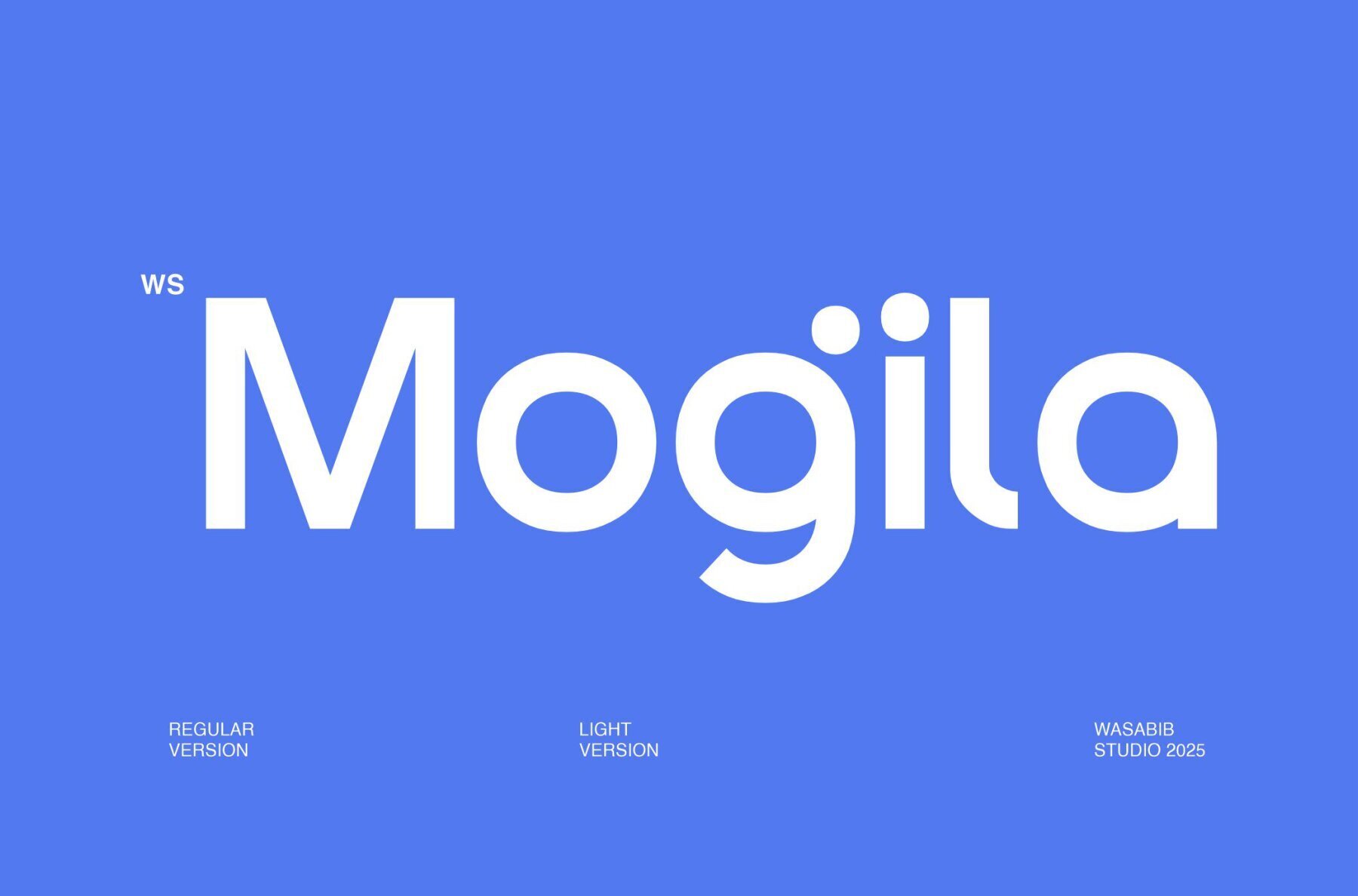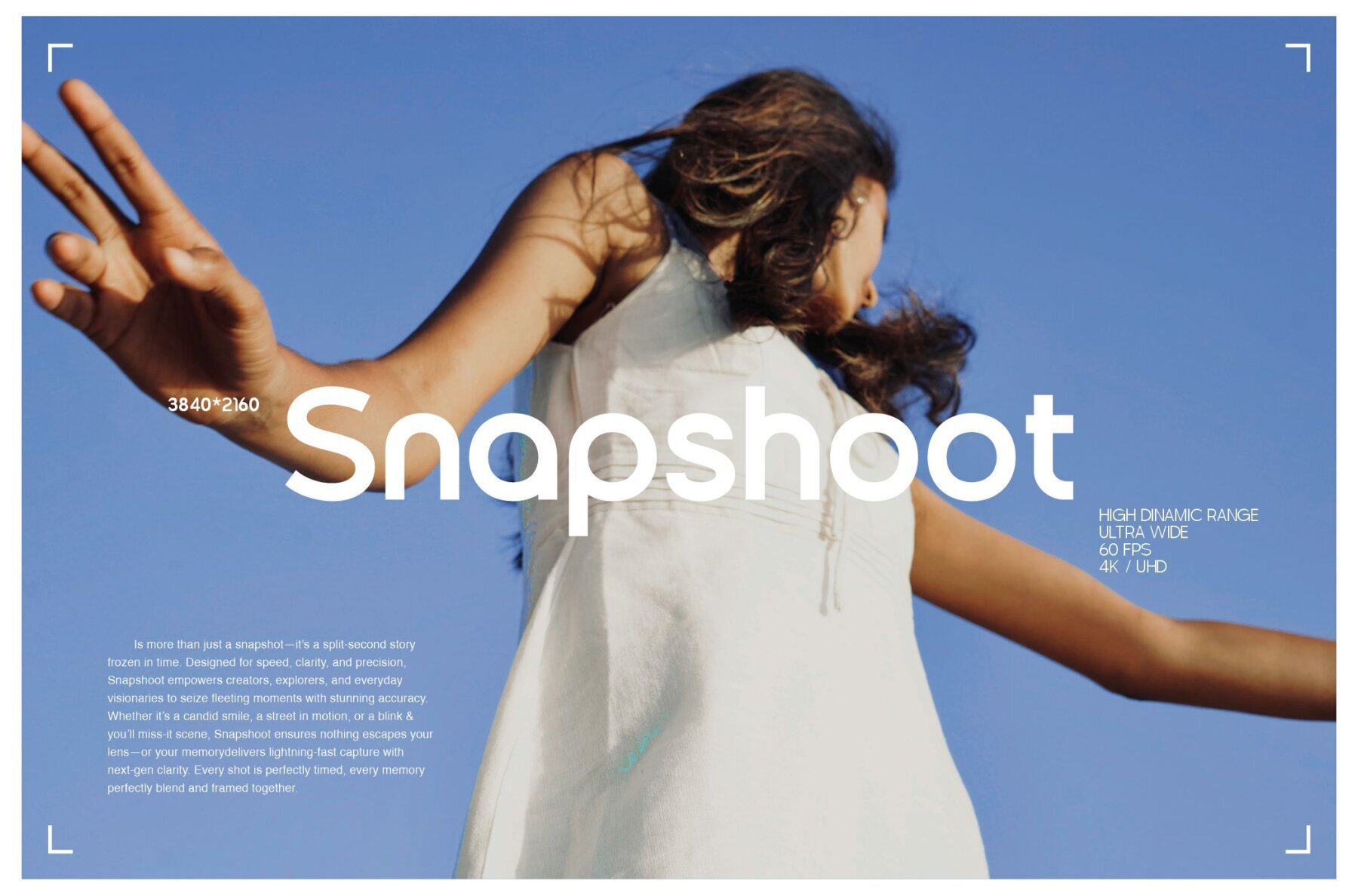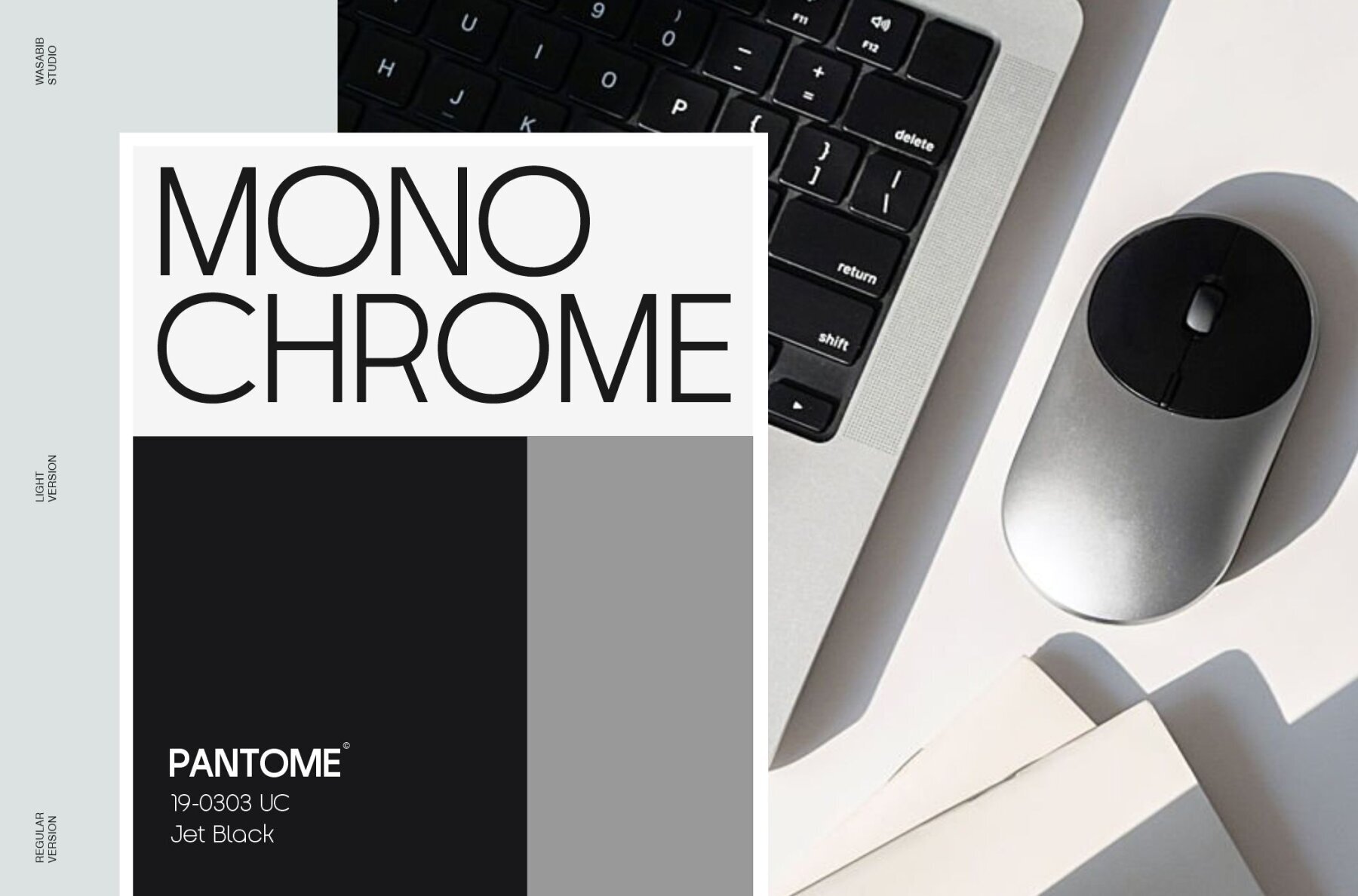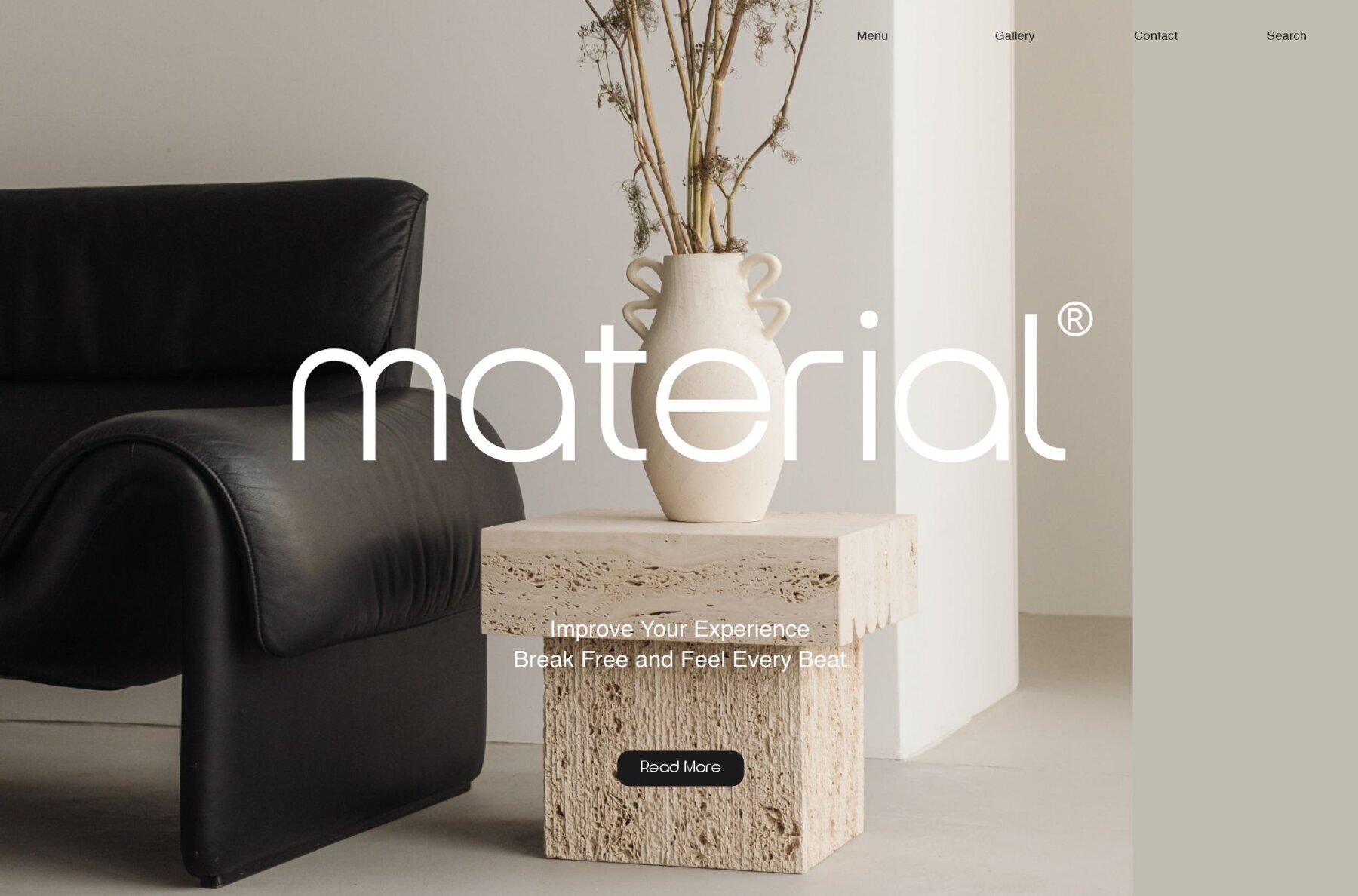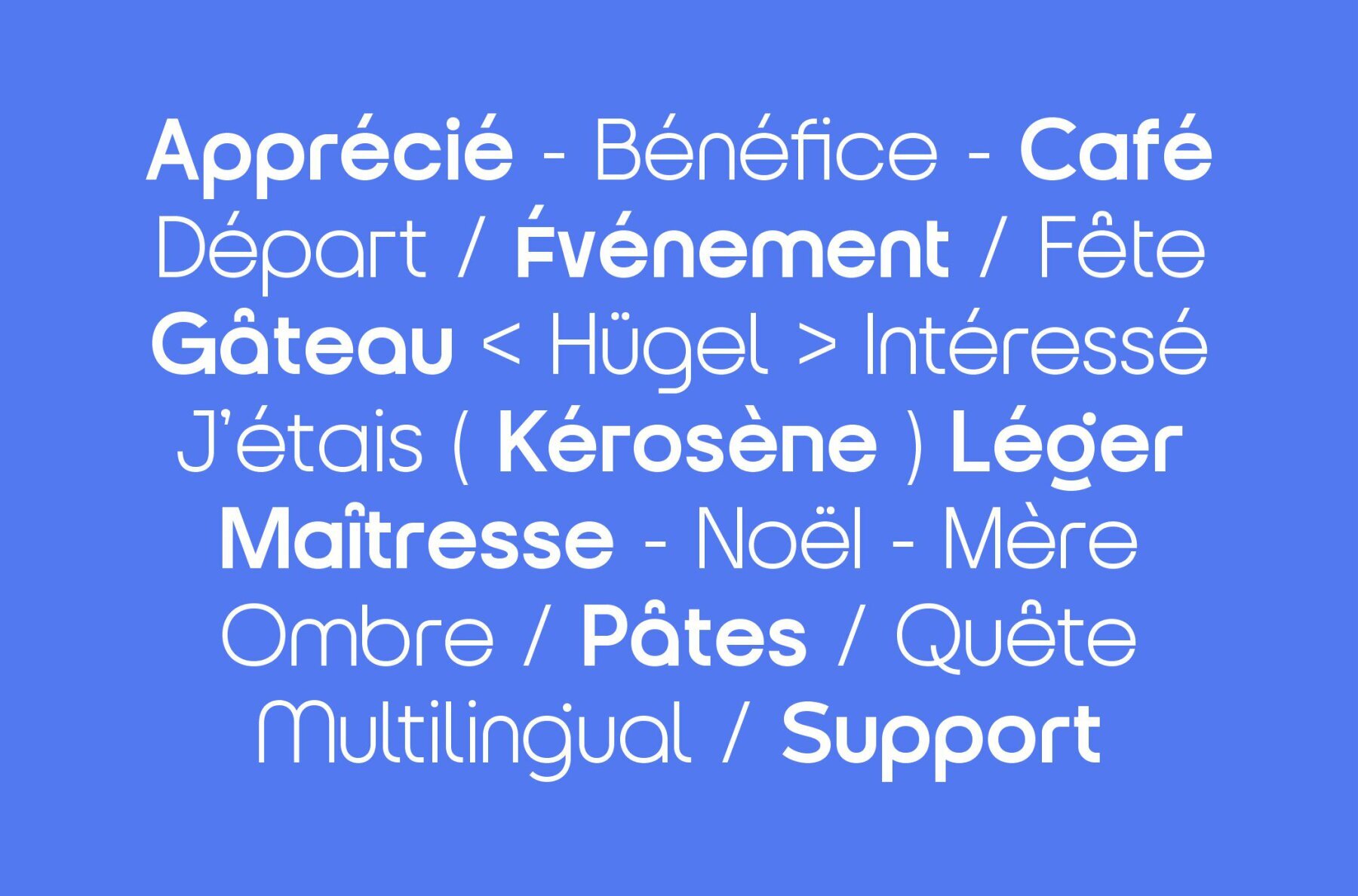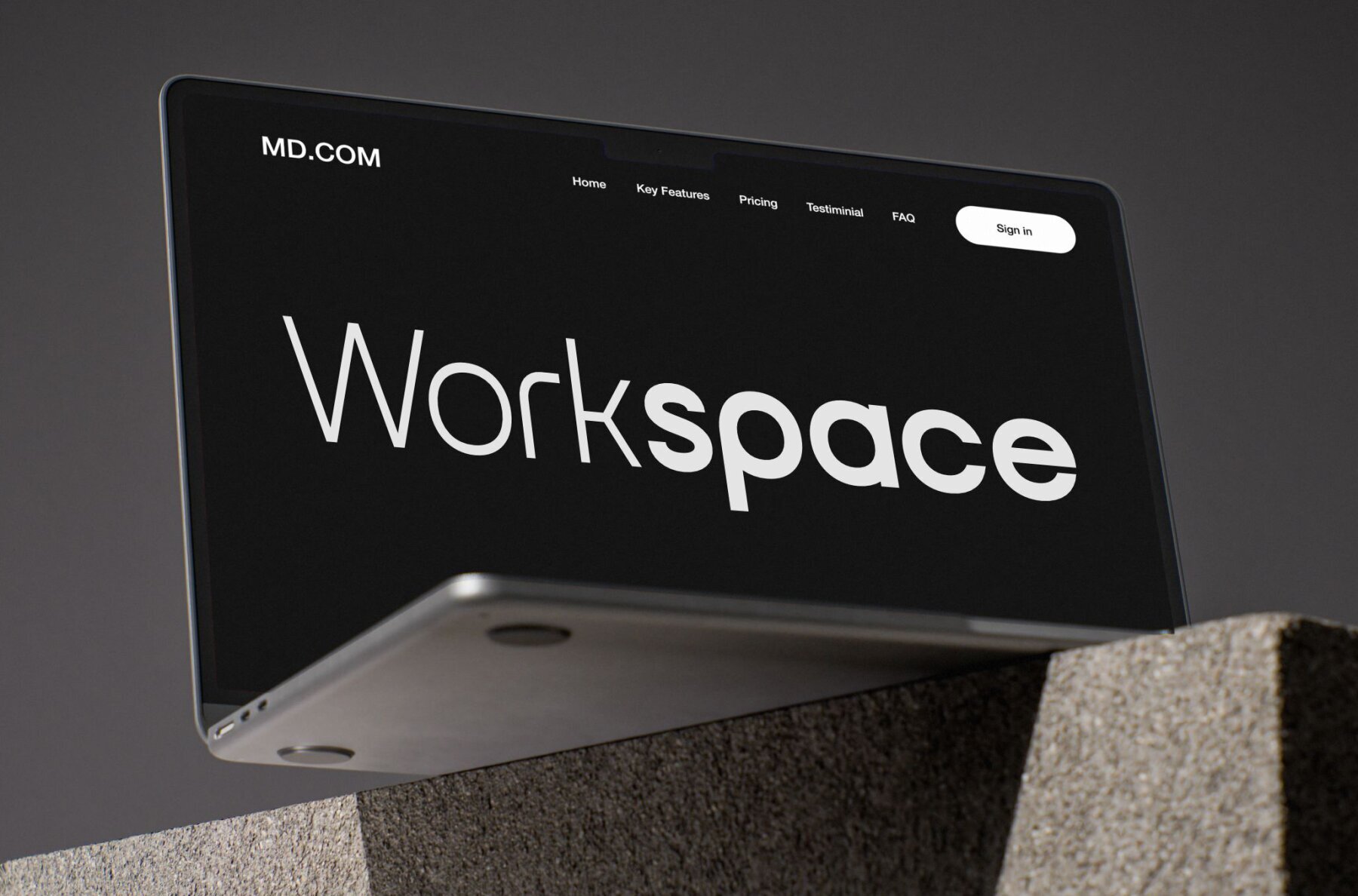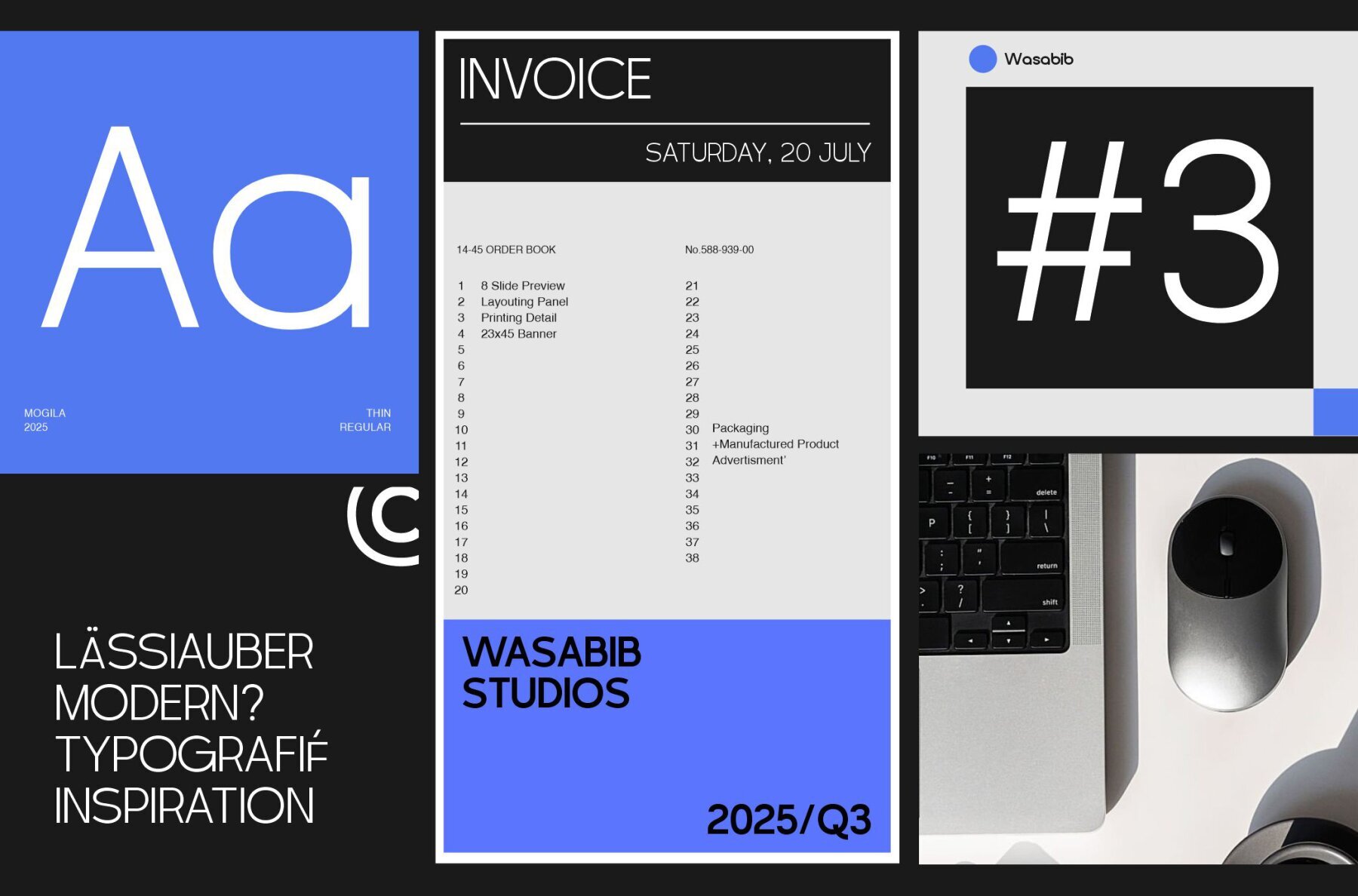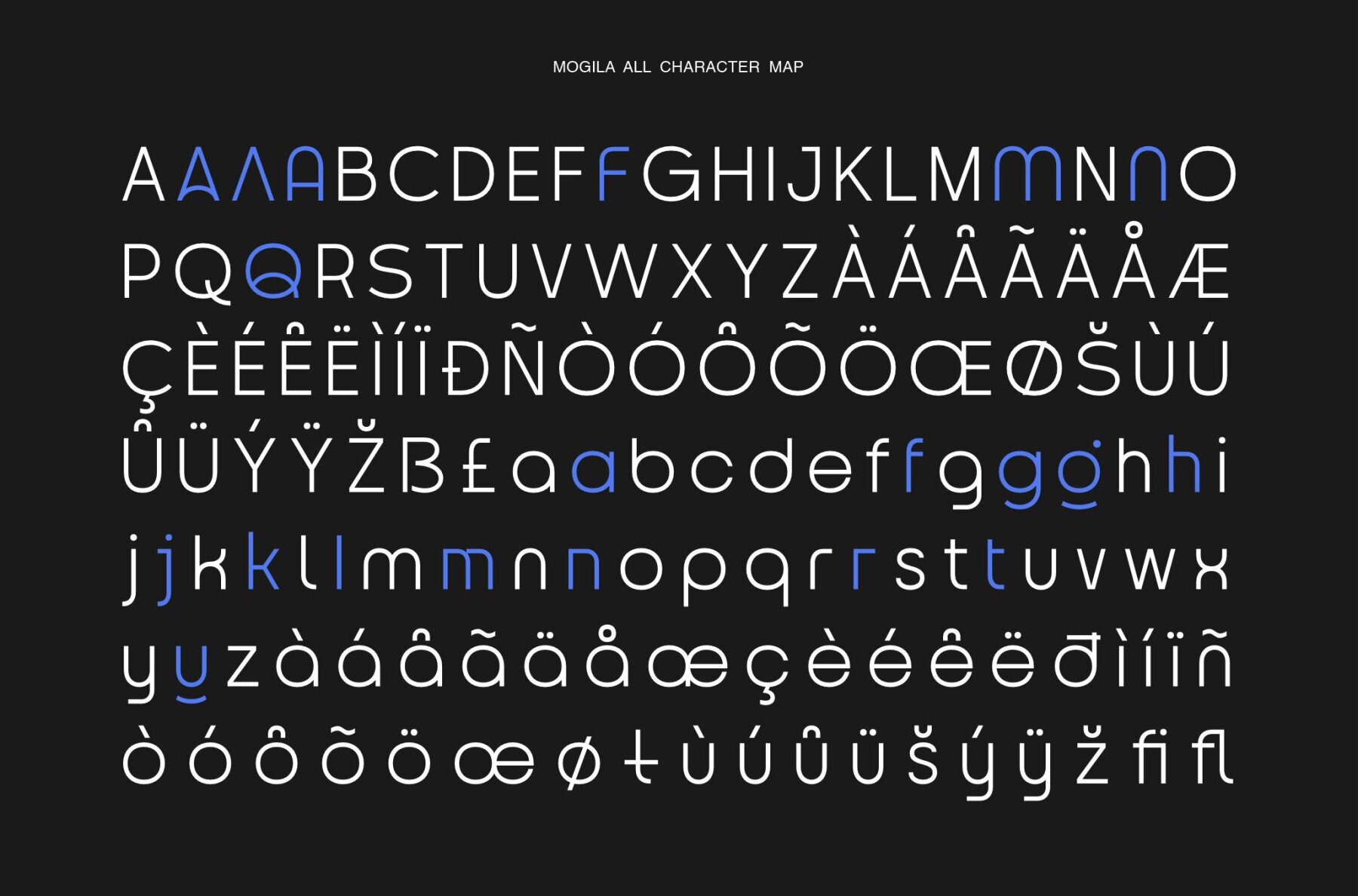
WS Mogila Font
Mogila exudes a clean, modern, and elegant aesthetic that stands out in logo and branding designs. Offering two distinct weights, Regular and Light, it brings both versatility and sophistication to any project. Its sleek and minimalistic design ensures seamless integration across various design projects, delivering polished and professional results.WS Mogila Font